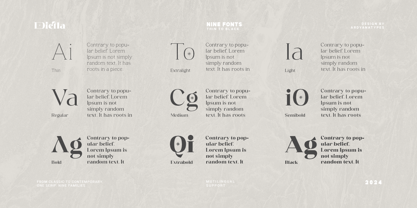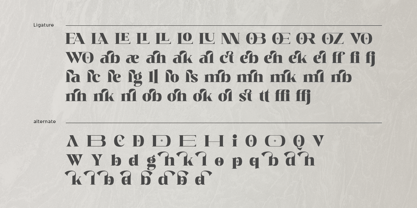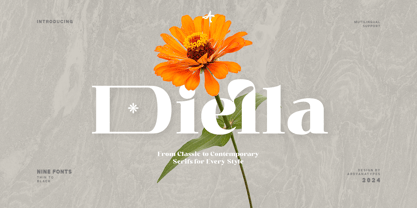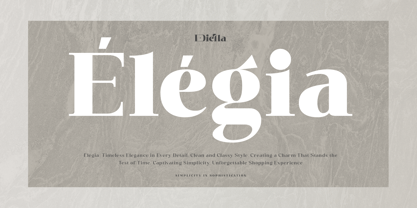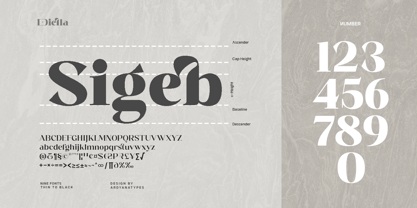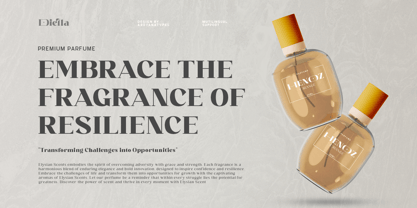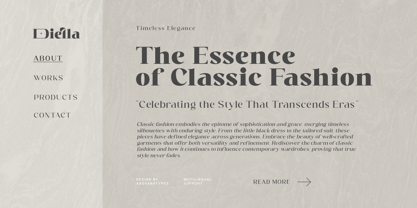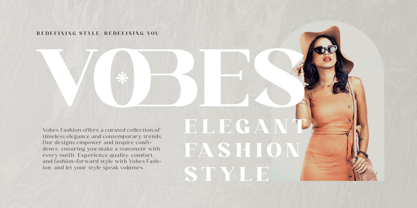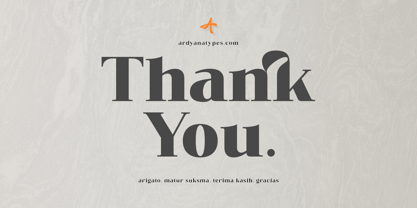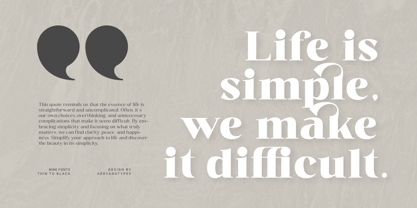
Diella
The Diella Font Family was designed by Ardyana Putra and published by Ardyanatypes. Diella contains 9 styles and family package options.
Diella is a modern serif font designed with perfect details to provide flexibility for various design needs. This font blends classic elegance with a contemporary look, making it an excellent choice for branding, editorial projects, logos, invitations, posters, and other creative works.
With 9 weights ranging from Thin to Black, Diella gives designers the freedom to customize typography styles for any project. Its smooth lines and well-proportioned shapes create a premium aesthetic, ideal for both digital and print applications.
Diella also comes with advanced OpenType features, including:
• Ligatures: Beautiful combinations of certain letter pairs for a more polished design.
• Alternates: Provides alternative letter styles for a unique and personal touch.
• Small Caps: Perfect for headlines or editorial designs requiring a formal yet eye-catching style.
• Oldstyle Figures: Suitable for numeric text in branding or editorial content needing a classic feel.
• Fractions: Adds a professional look to fractional numbers.
These OpenType features are designed to enhance creative flexibility and deliver a flawless final result. Additionally, Diella supports multilingual characters, making it easy for users worldwide to use the font seamlessly.
As the latest creation from Ardyanatypes, Diella is more than just a font; it’s an investment in visual aesthetics that will elevate the quality of every project. Whether used for short texts, body paragraphs, or large headlines, Diella ensures clarity and beauty in every detail.